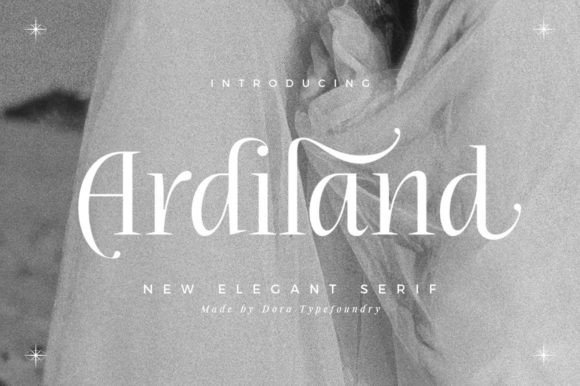
Have you ever stared at a blank canvas, waiting for inspiration to strike? The blank page stares back, taunting you to bring it to life. It’s in these moments of creative uncertainty that the right tools can make all the difference. That’s where the Ardiland Font comes in – a sophisticated, charming serif font with a fashionable touch that’s sure to breathe life into your projects.
With its contemporary and fresh design, the Ardiland Font is the perfect addition to any creative endeavor. Whether you’re a seasoned designer or just starting out, this versatile font is sure to make your work stand out. Its PUA encoding allows for easy access to all the glyphs and ligatures, giving you the freedom to experiment and push the boundaries of your creativity.
Ardiland Font Key Features
- Font Family: Ardiland Font is available in three font families: Regular, Italic, and Bold, ensuring versatility in various design applications.
- Character Set: The font features a comprehensive character set, including Latin, Cyrillic, and Greek alphabets, as well as a wide range of punctuation marks and symbols.
- Unique Characteristics: Ardiland Font boasts a distinctive, modern design with clean lines and elegant curves, making it ideal for use in corporate branding, advertising, and editorial design.
Ardiland Font Review
- The font’s unique blend of modern and vintage elements is quite captivating. It’s perfect for designers looking for something that stands out from the usual sans-serif fonts.
- The font’s versatility is impressive, and it can be used in a wide range of applications, from branding and logos to body text and headings.
- The font’s high level of detail and intricate design make it perfect for designers who want to add a touch of sophistication to their projects.
- The font’s high level of detail can sometimes make it difficult to read, especially at smaller font sizes.
- The font’s unique design can also make it challenging to pair with other fonts, so designers may need to experiment with different combinations to find the right fit.
Overall, I’m impressed with the Ardiland Font’s unique design and versatility. While it may have some limitations, it’s definitely worth considering for designers looking for a font that adds a touch of sophistication to their projects.
For optimal results, use the Ardiland font in conjunction with other modern fonts to create a balanced and visually appealing design.
Use the font to create headings, titles, and short paragraphs for maximum impact.
The Ardiland font is ideal for:
– Creative projects, such as brochures, posters, and social media graphics.
– Designing titles, headings, and short paragraphs for reports, presentations, and documents.
– Creating a unique and modern aesthetic for your brand or business.